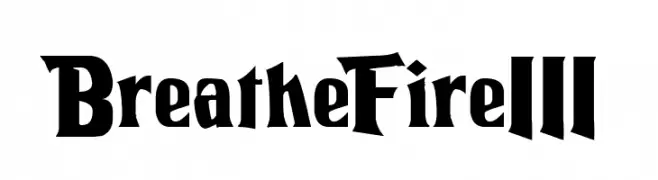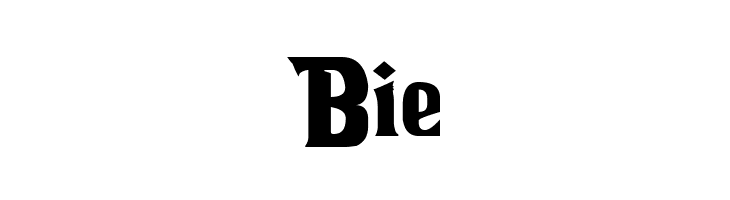
A high-contrast serif font with elegant, sharp serifs and a classic style.
A bold, geometric font with high contrast and strong visual impact.
A bold, dynamic font with sharp, angular edges and an aggressive flair.
A bold, decorative font with circular cutouts, reminiscent of vintage Western styles.
An elegant italic font with smooth curves and dynamic strokes, reminiscent of calligraphic handwriting.
A bold, jagged font with a dynamic, graffiti-like style.
A modern, elegant font with elongated letterforms and sharp edges.
A graceful script font with elegant loops and swashes, reminiscent of classic calligraphy.
A bold, expressive handwritten font with dynamic strokes.
A thorny, decorative font with sharp, edgy details.